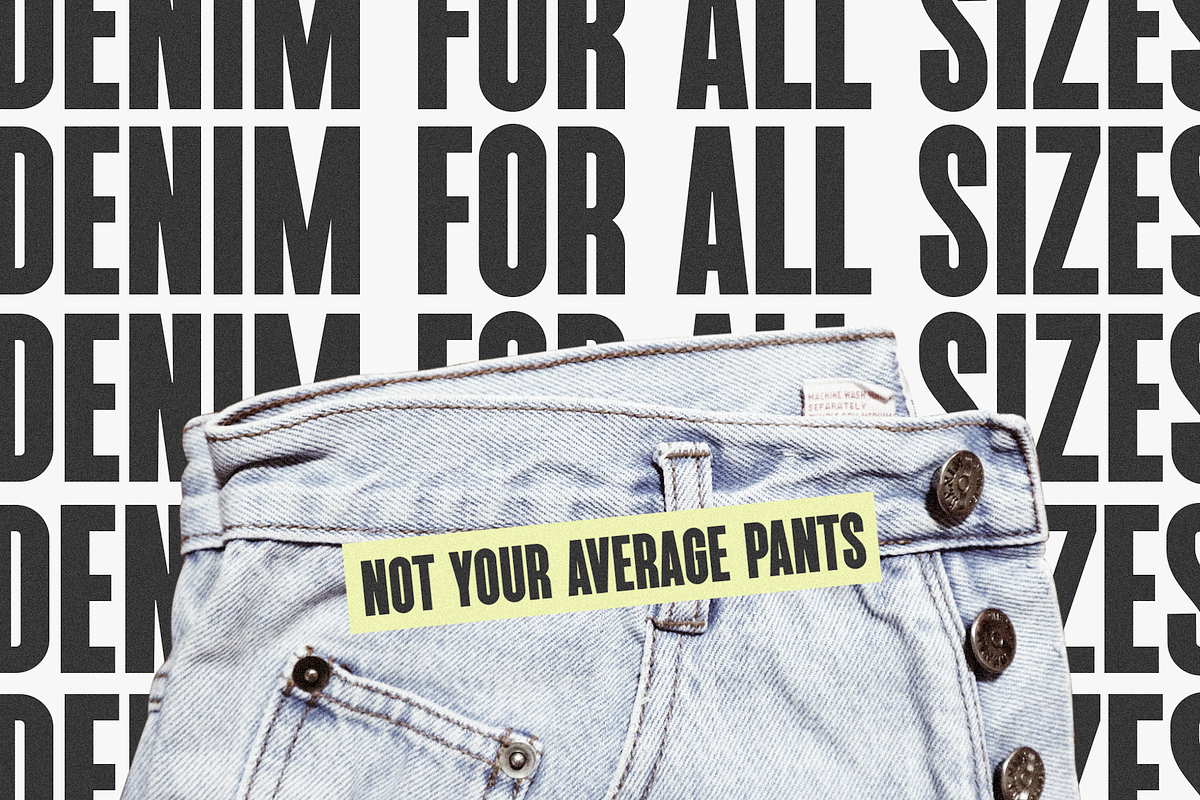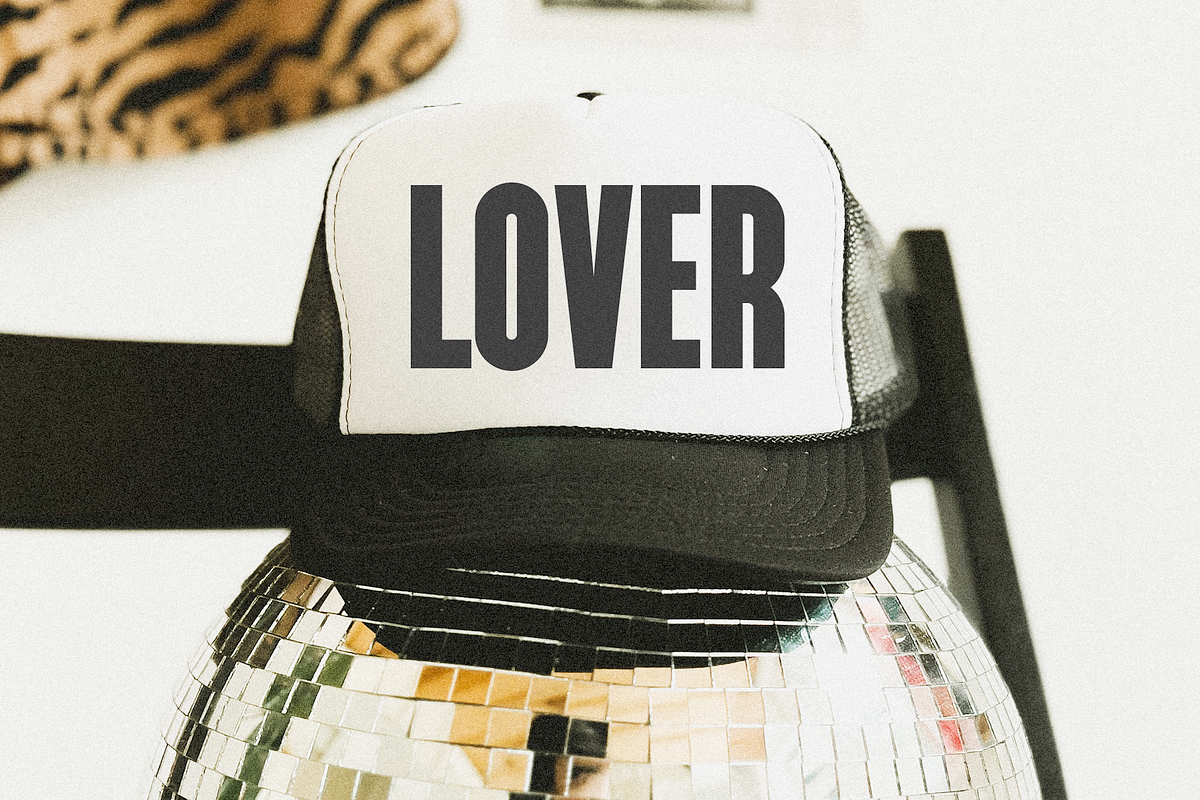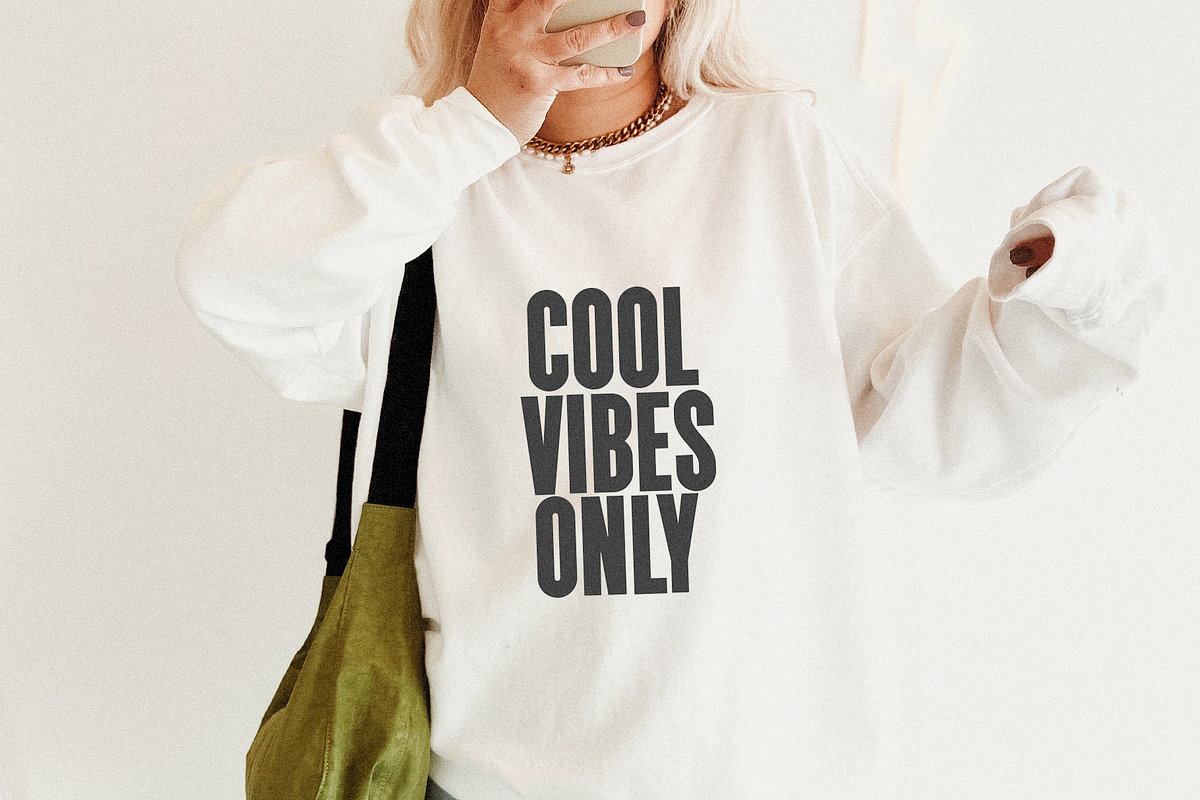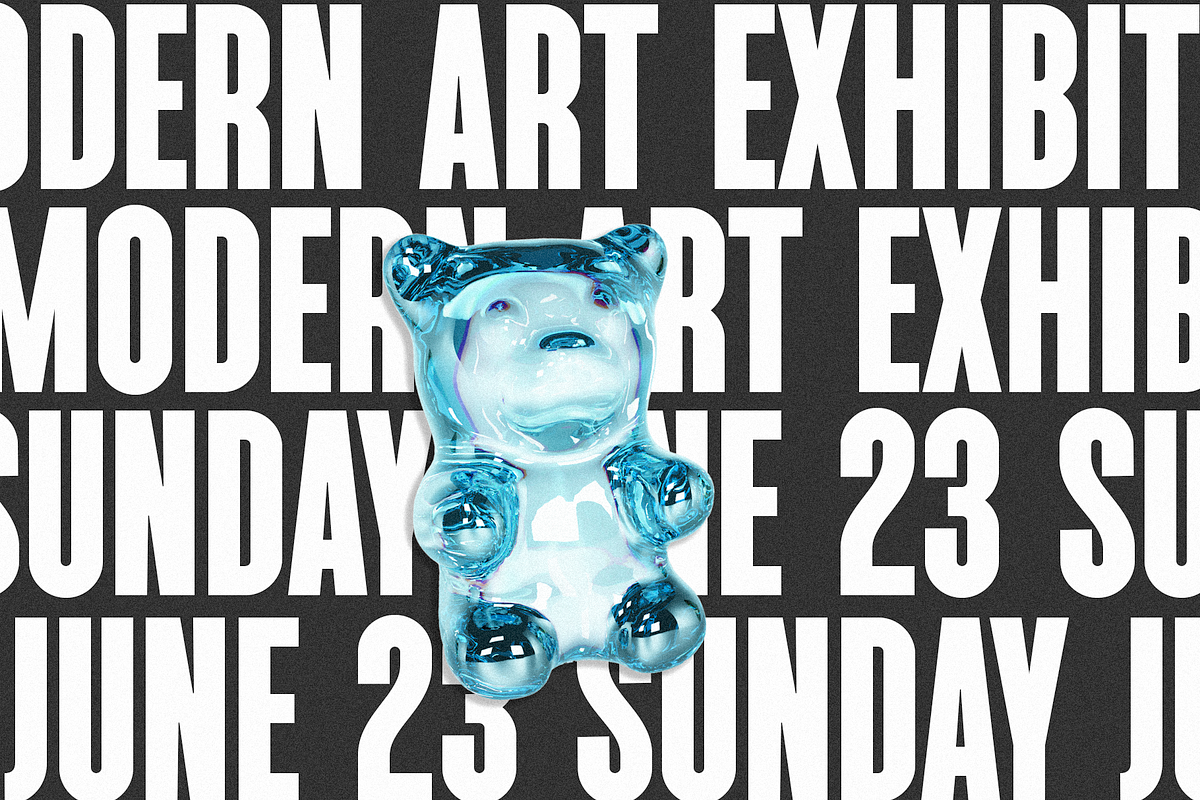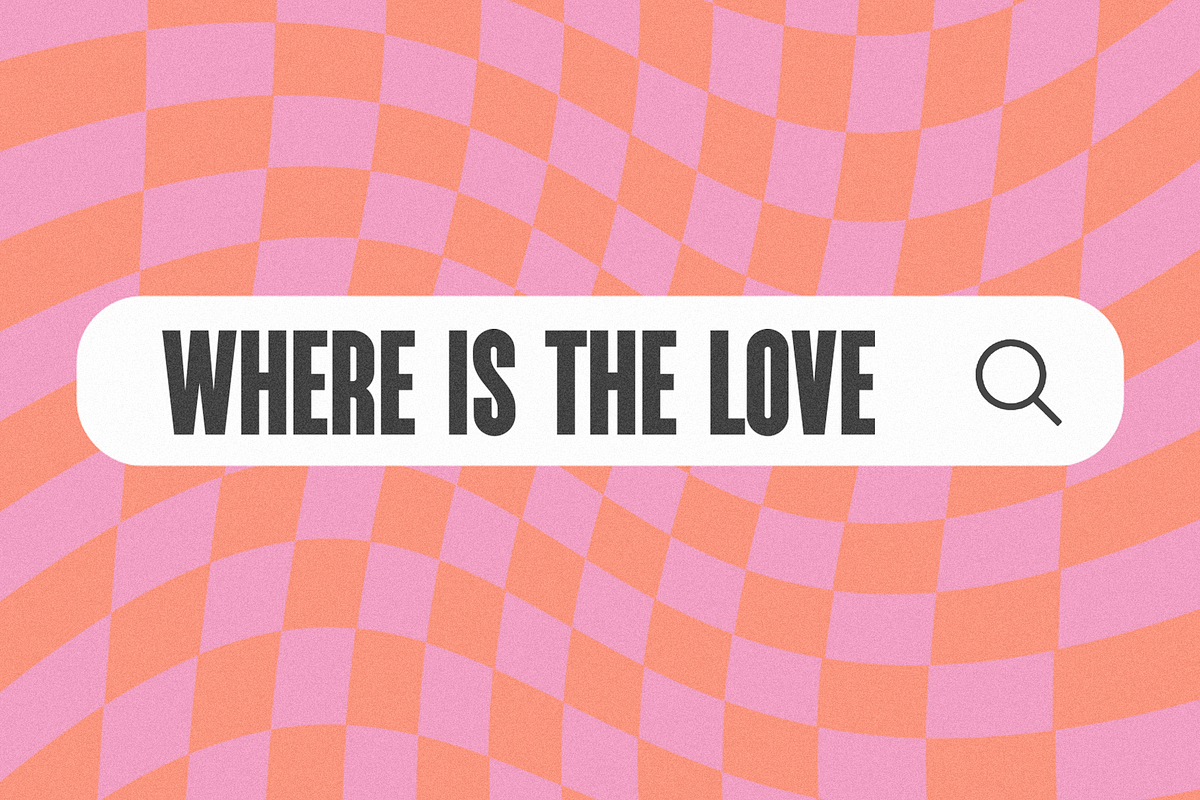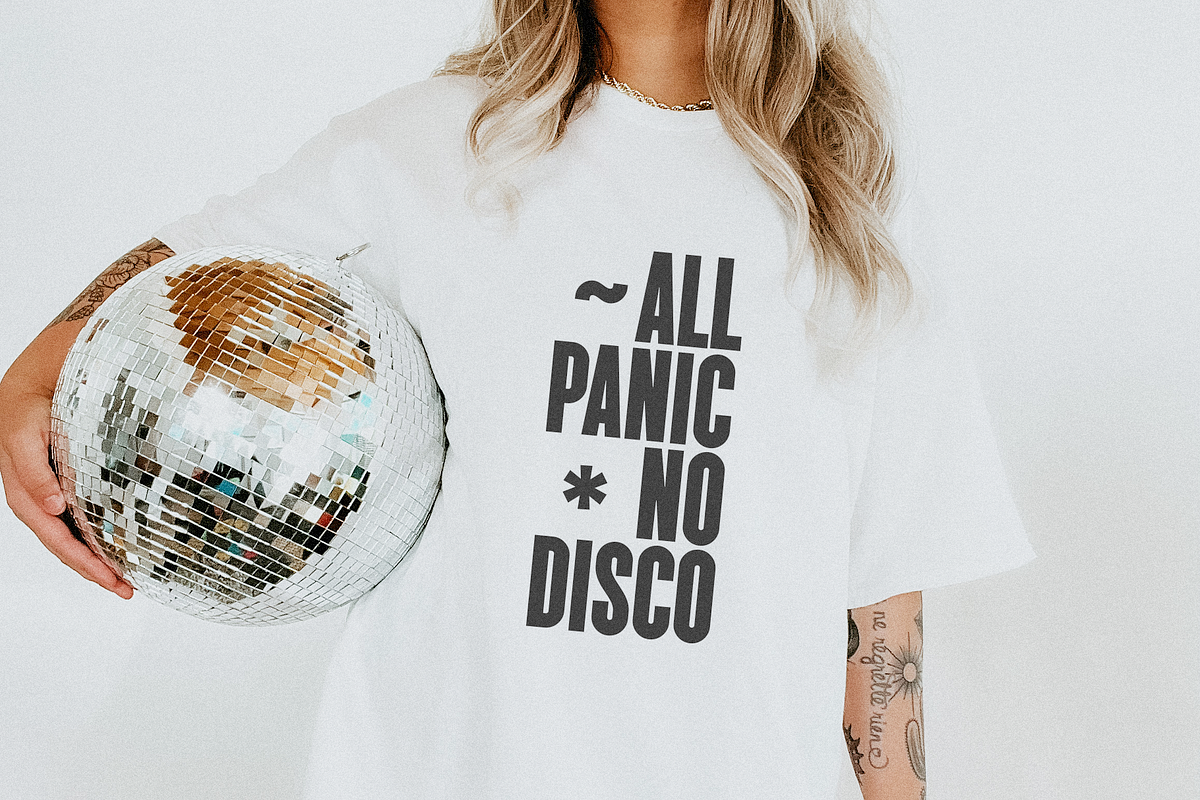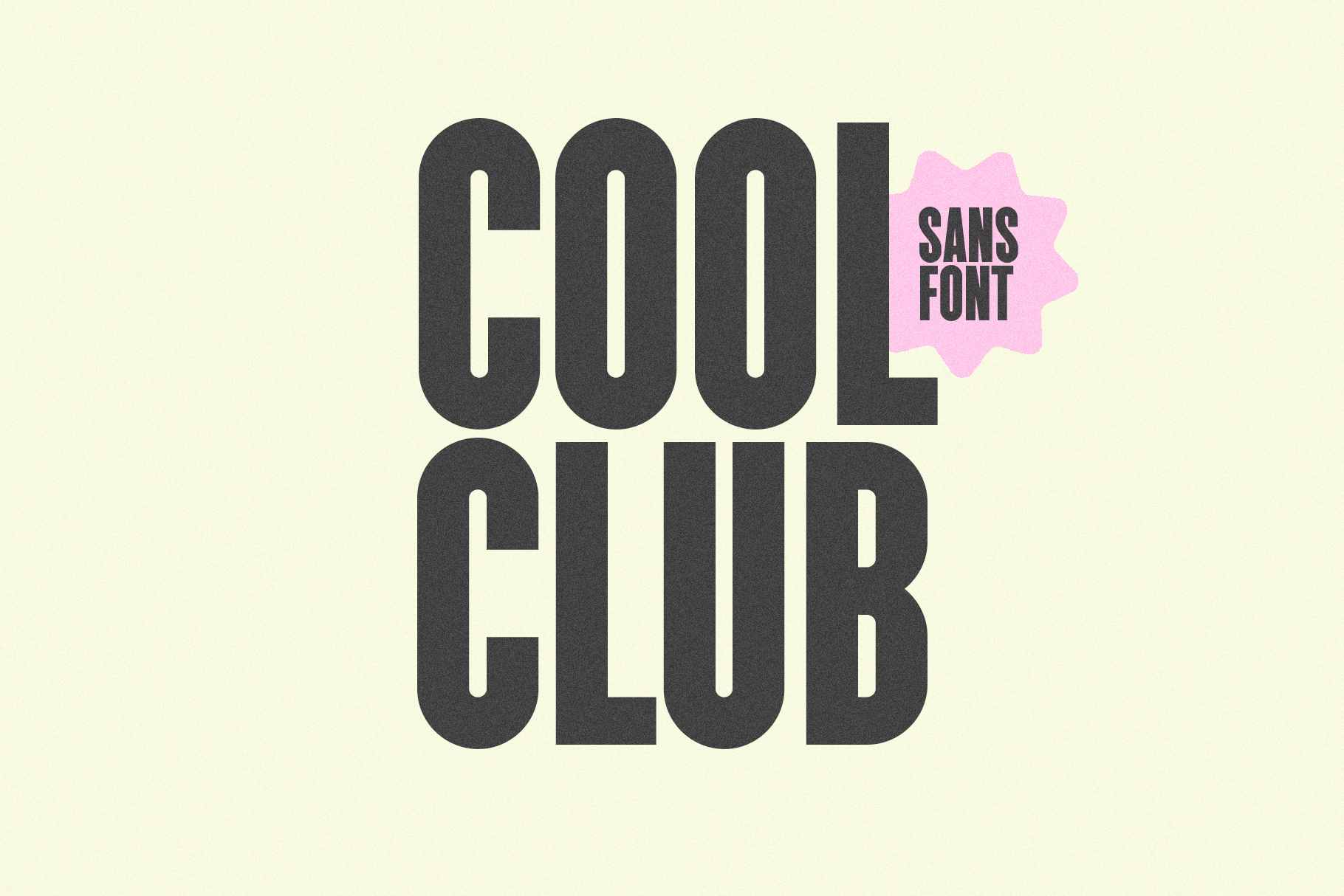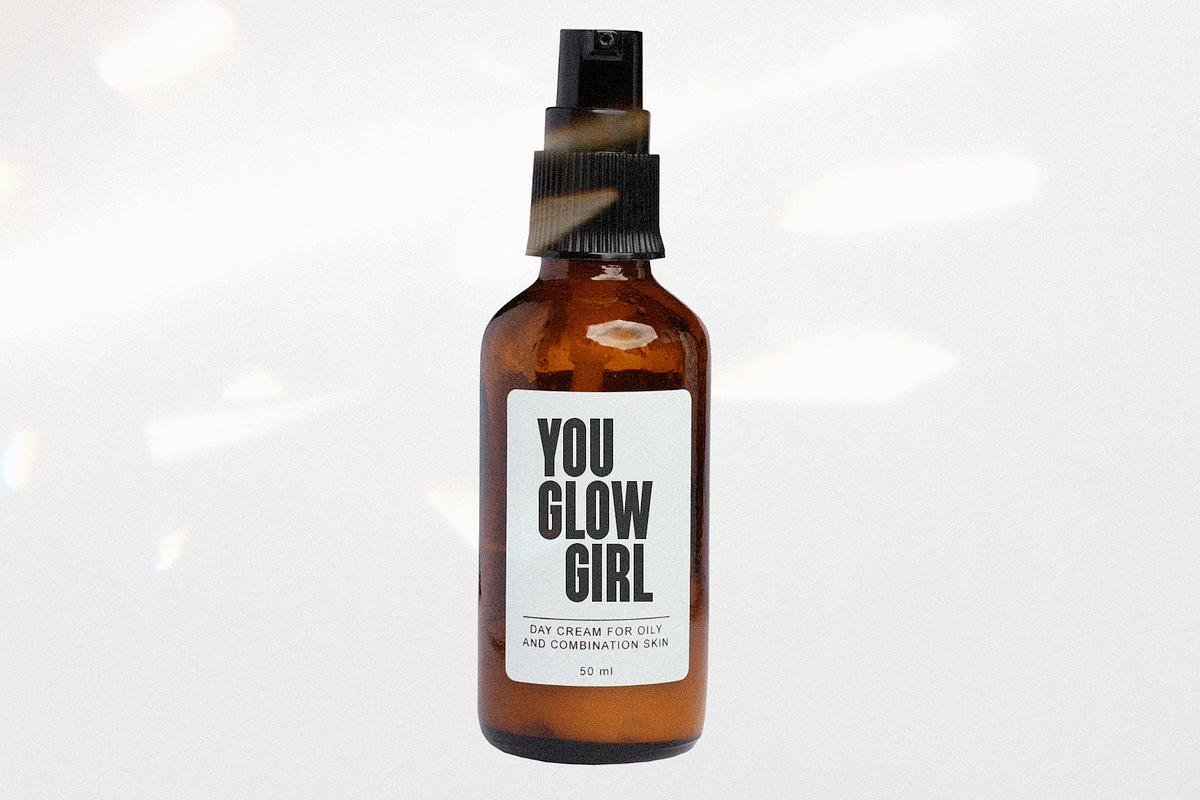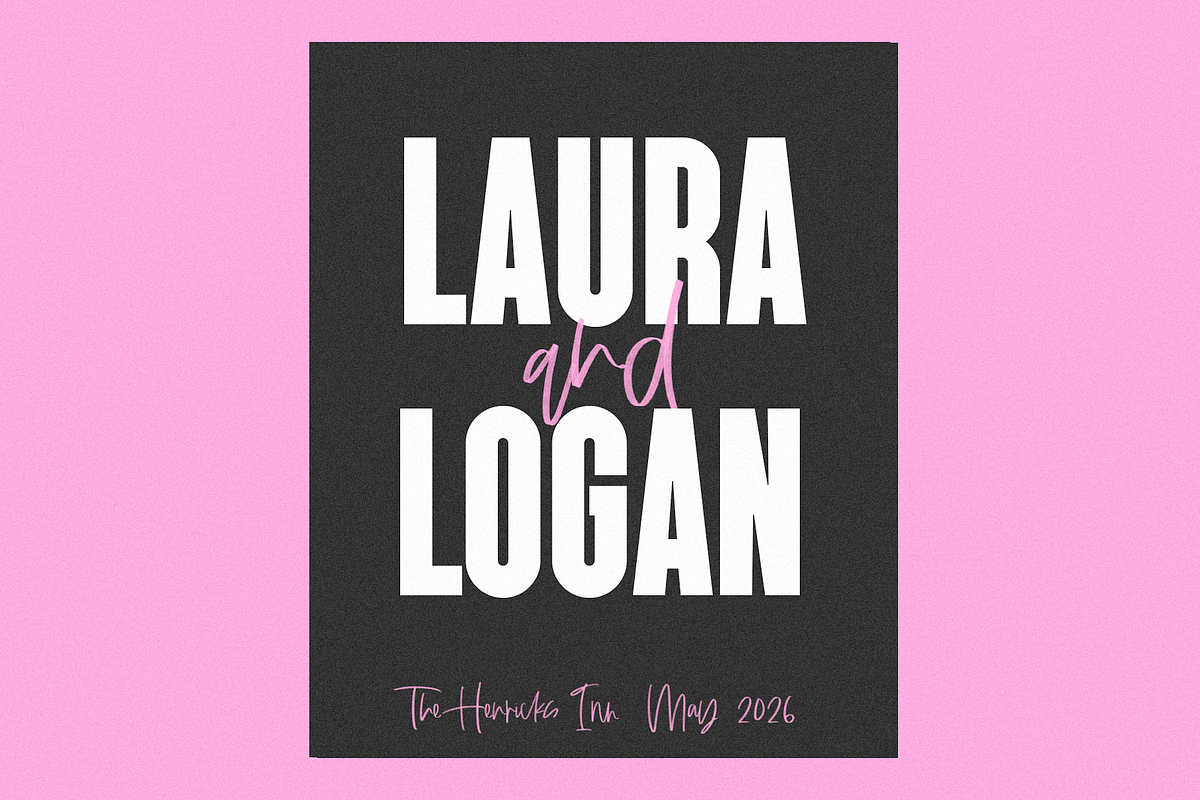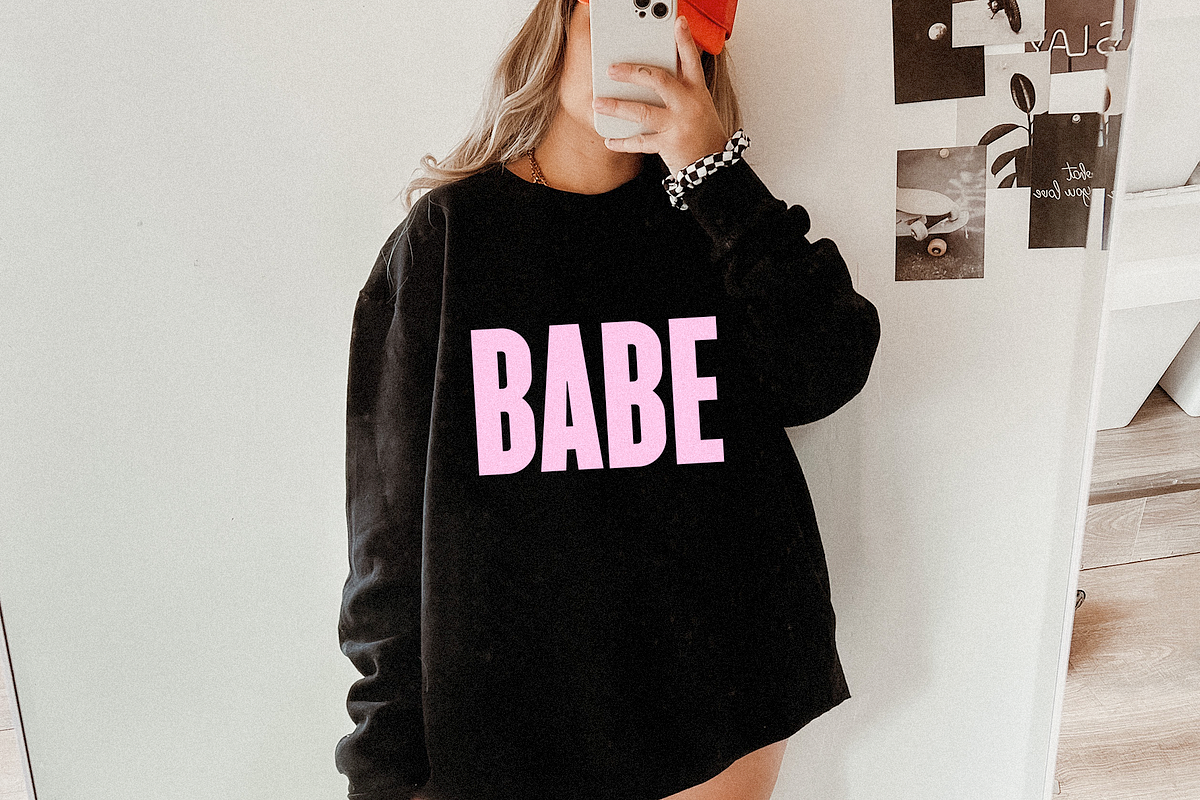
Cool Club | Tall Sans Font
Cool Club is a tall sans font.
This font is perfect for logos, branding, shirts, wedding decor, stickers, quotes, posters, cricut, canva and more!